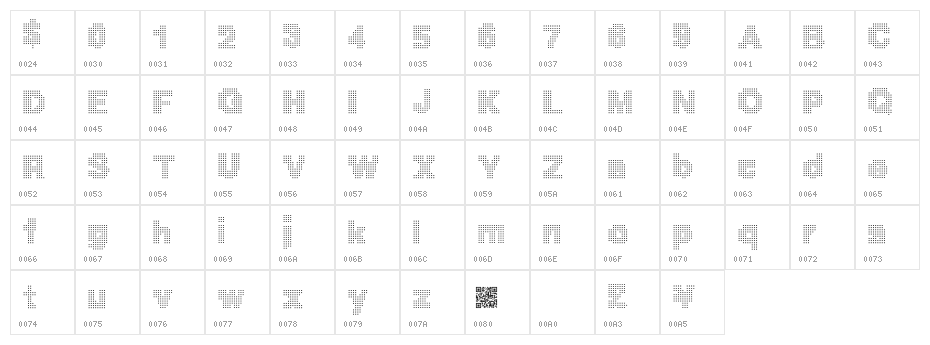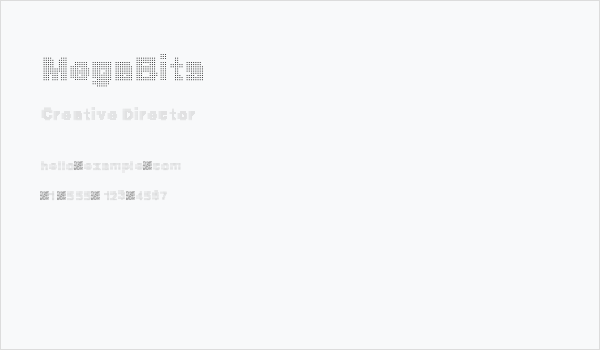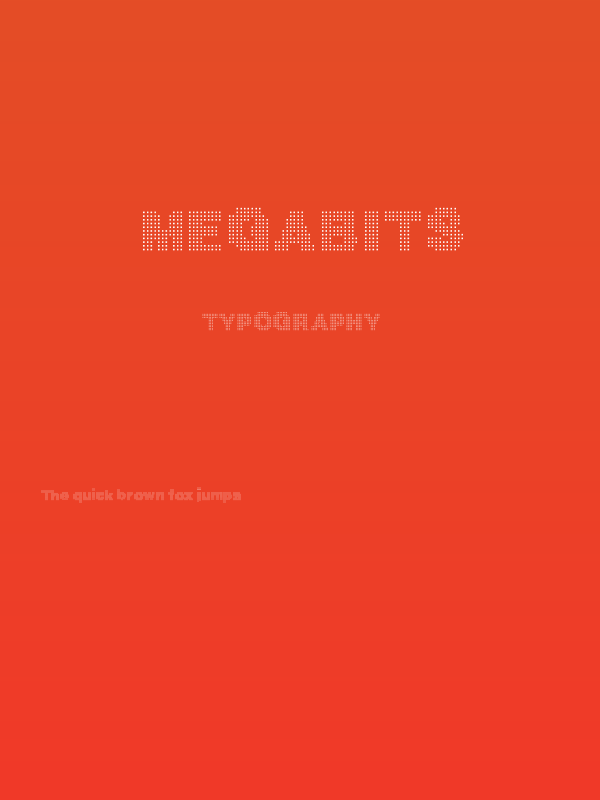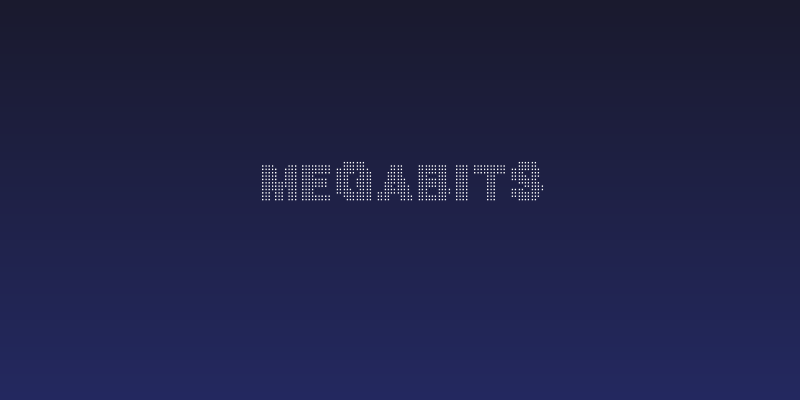
MegaBits Font
MegaBits Description
This font features a unique design composed entirely of small dots, creating a digital and modern aesthetic. Each character is formed by a grid of dots, giving it a pixelated appearance reminiscent of early digital displays or LED screens. The uppercase and lowercase letters maintain a consistent style, with clear geometric shapes that ensure readability despite the unconventional design. Numbers and special characters follow the same dot matrix pattern, making the font cohesive across all characters. The overall look is futuristic and tech-inspired, suitable for projects that require a digital or retro digital feel.
| Proposed Projects | Ideal for digital art, tech-themed posters, retro video game graphics, and electronic music album covers. |